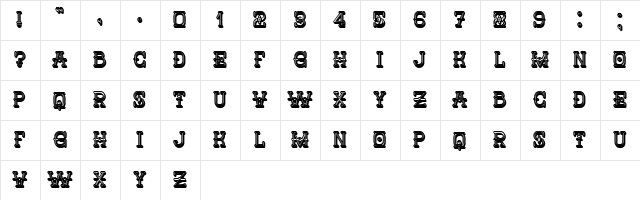
Nautica 3D Regular
Design Context for Nautica 3D Typeface
Nautica 3D is a composed and adaptable typeface that performs quietly and consistently across a wide range of design contexts.